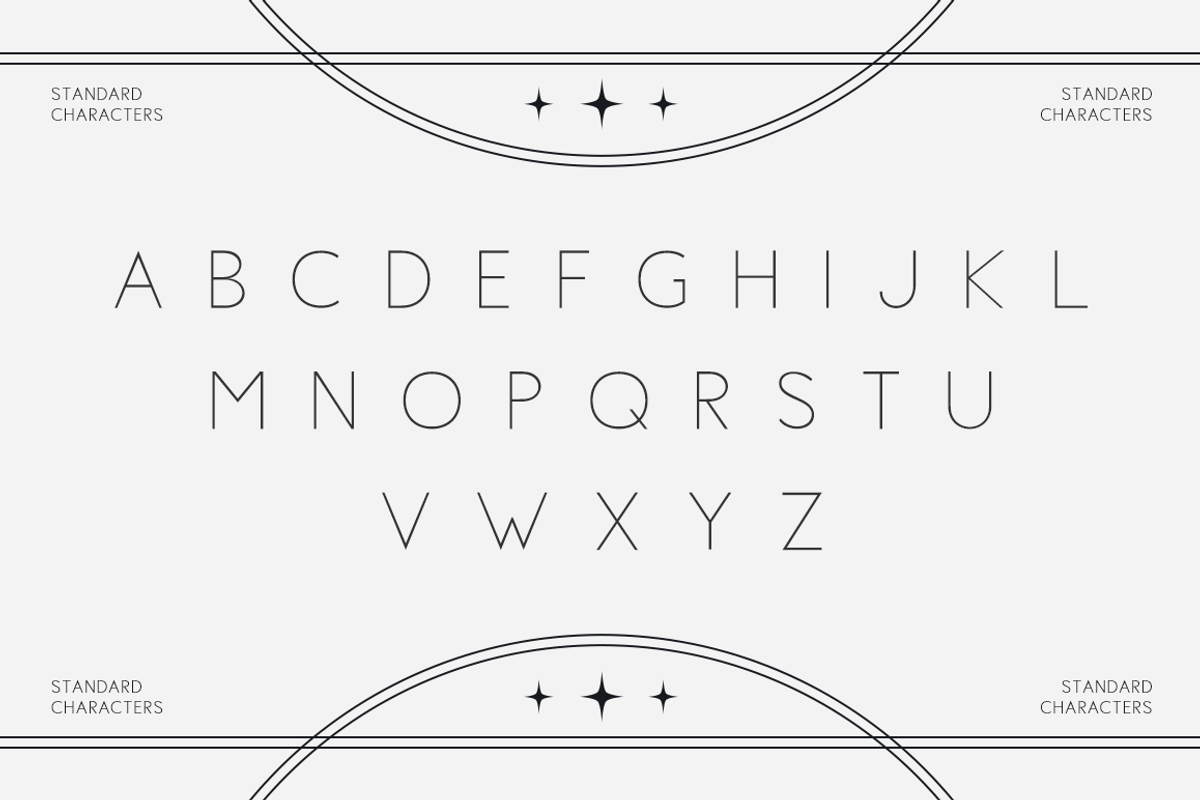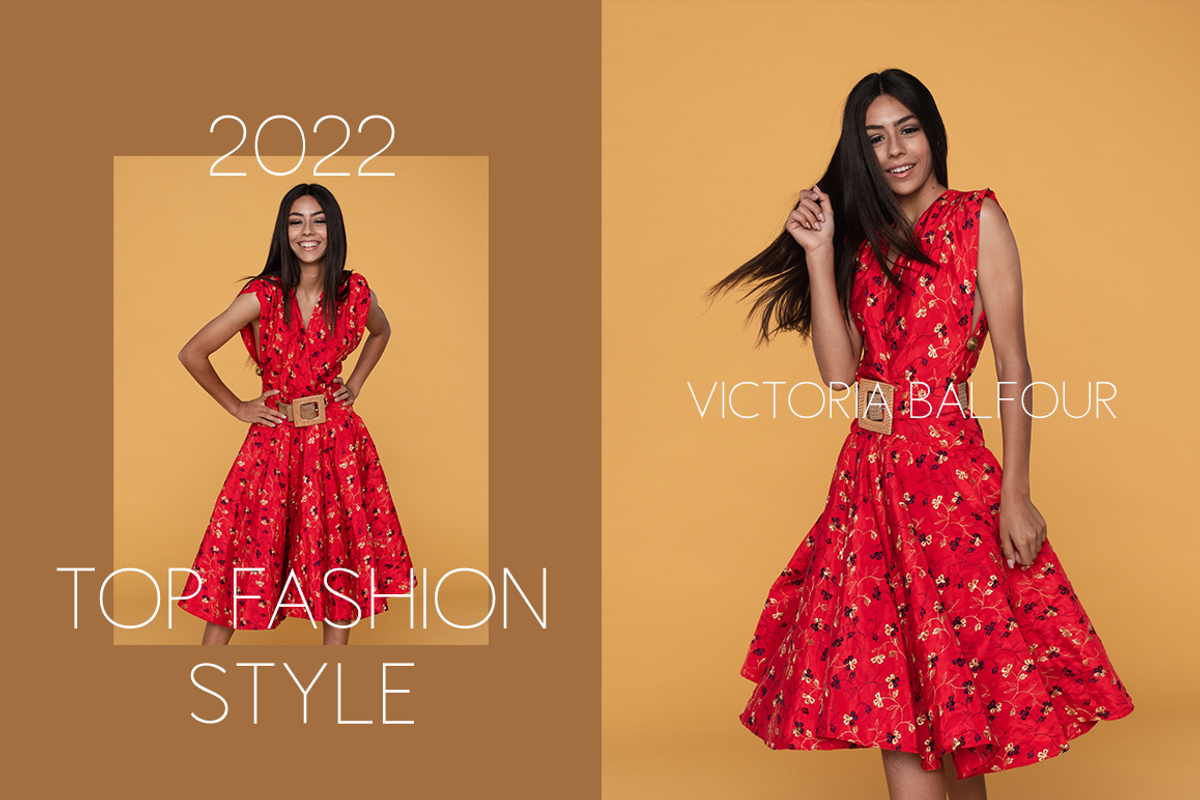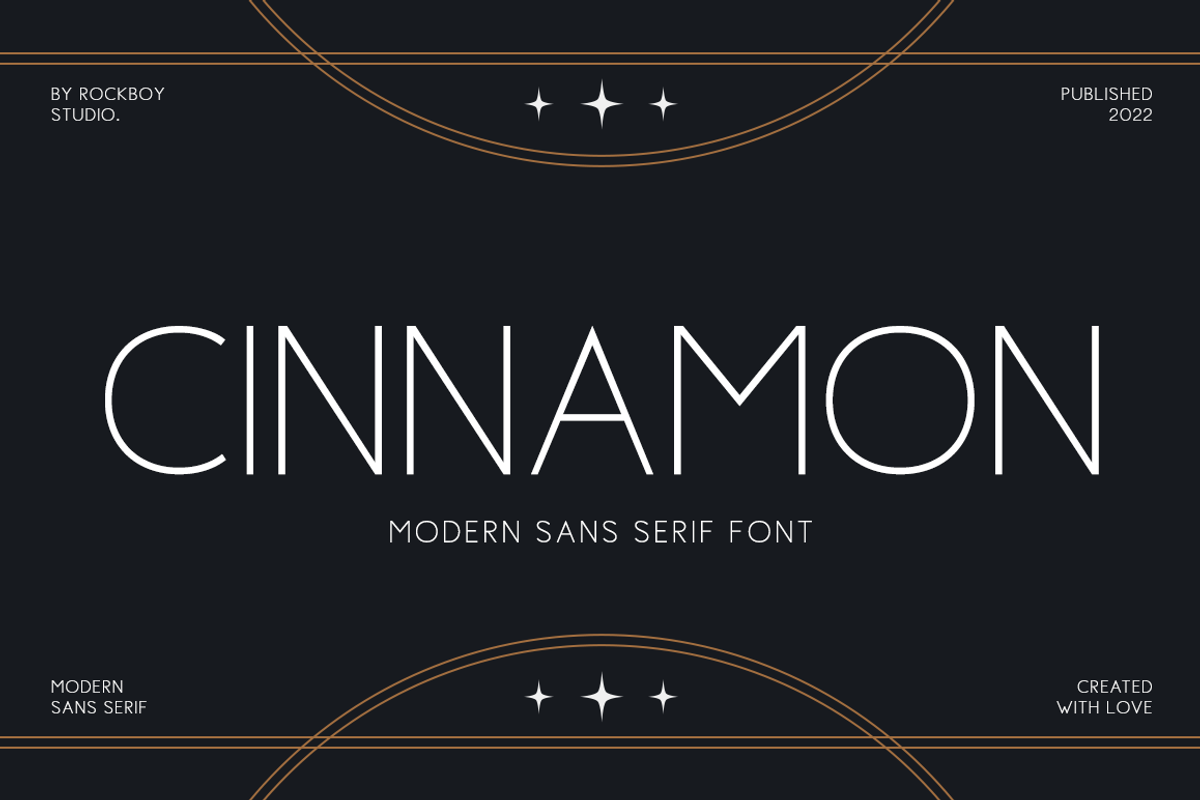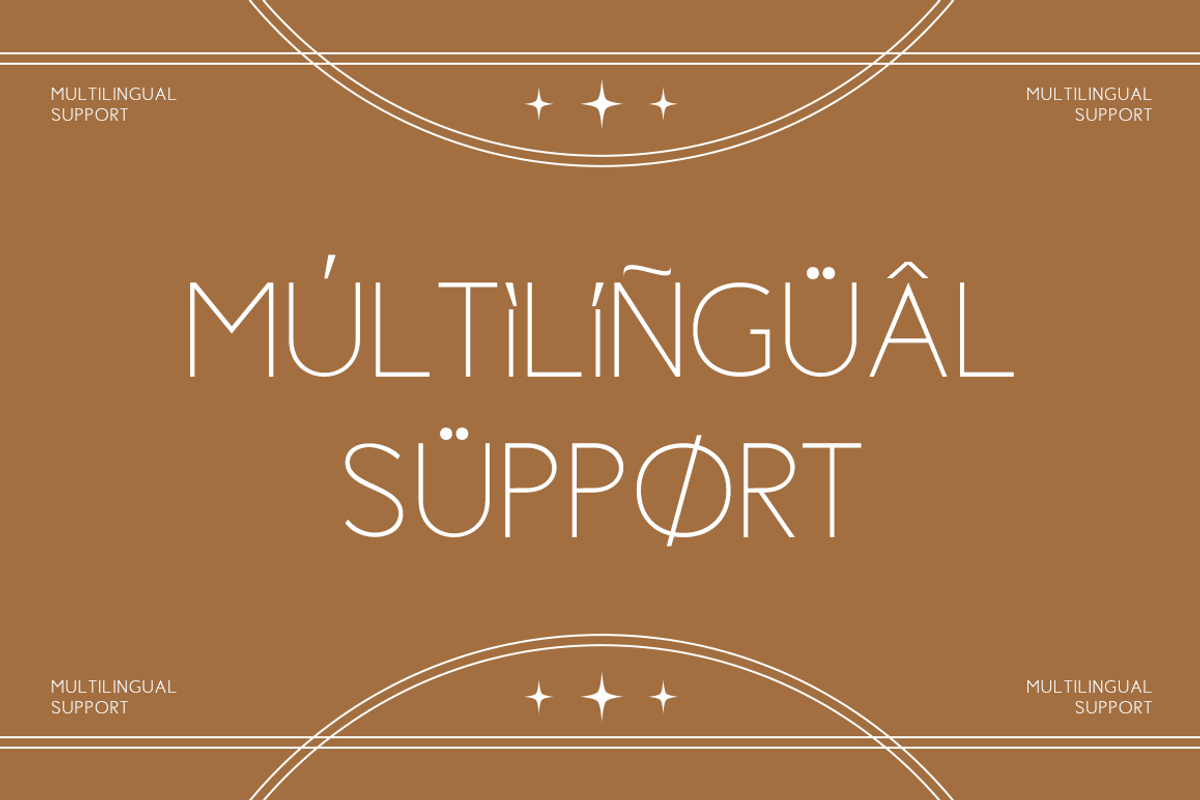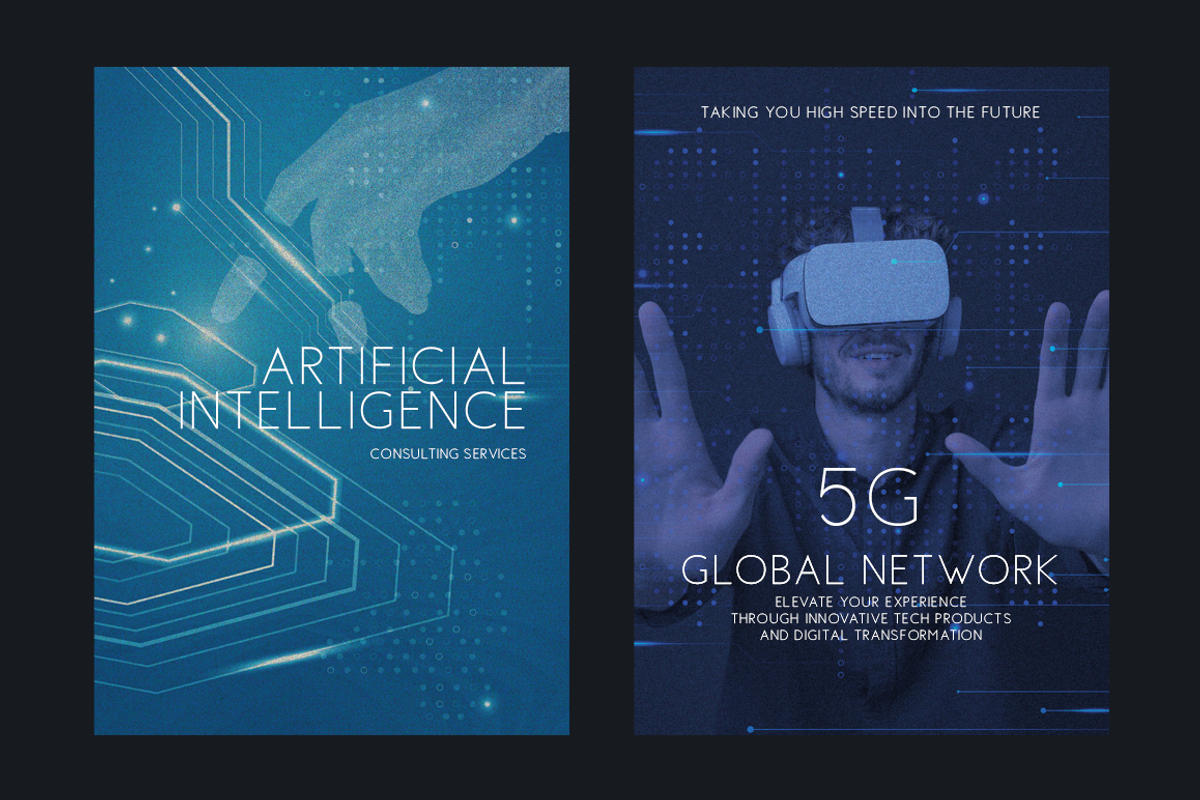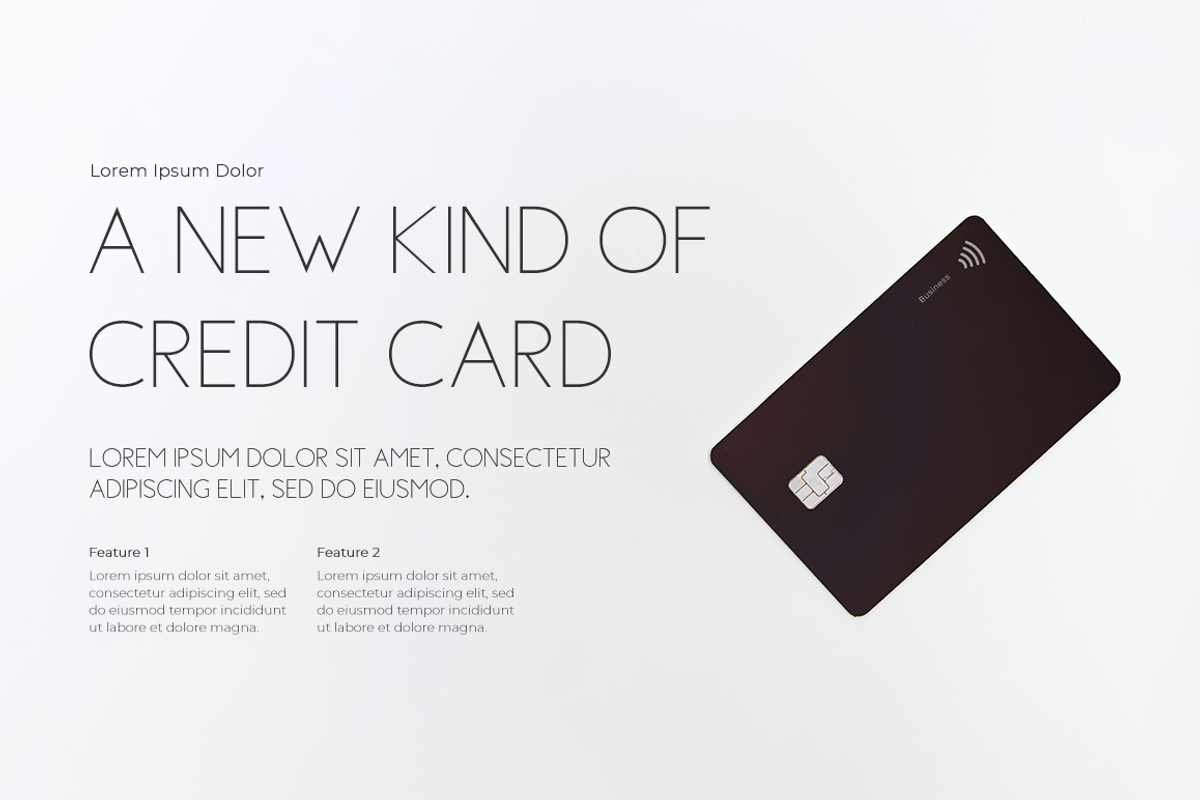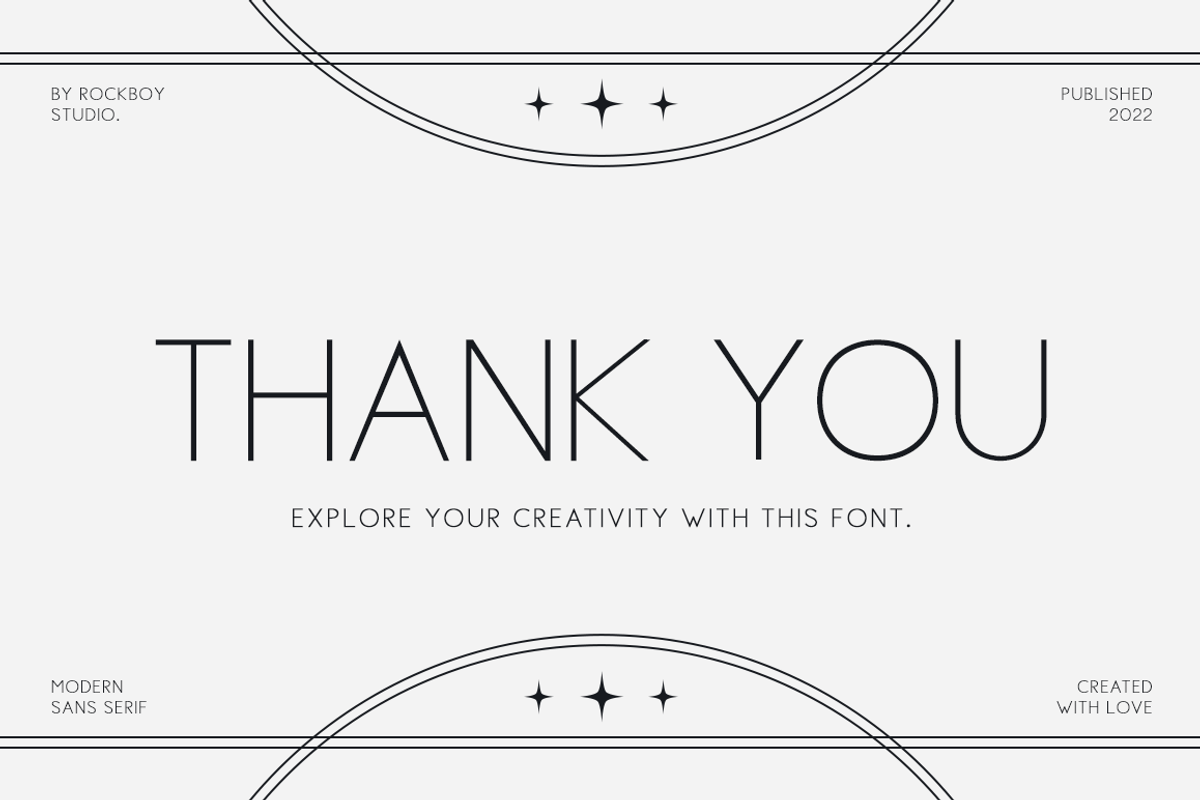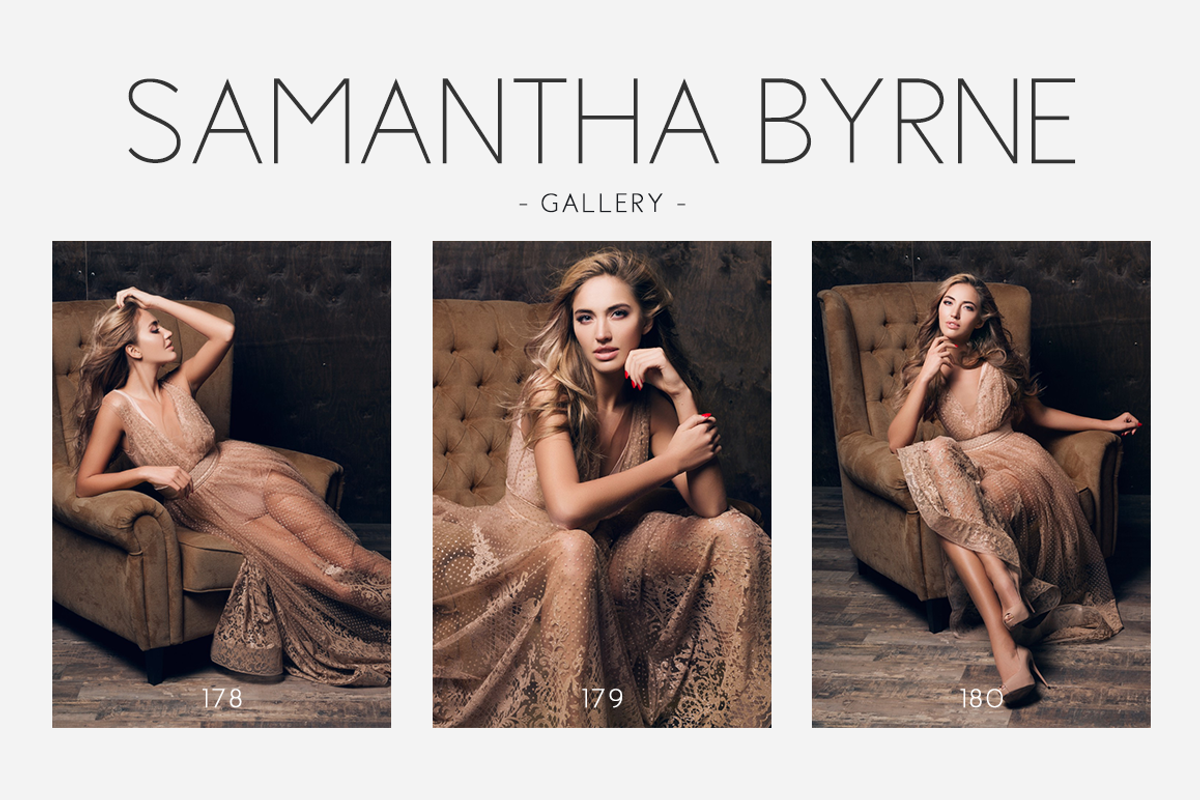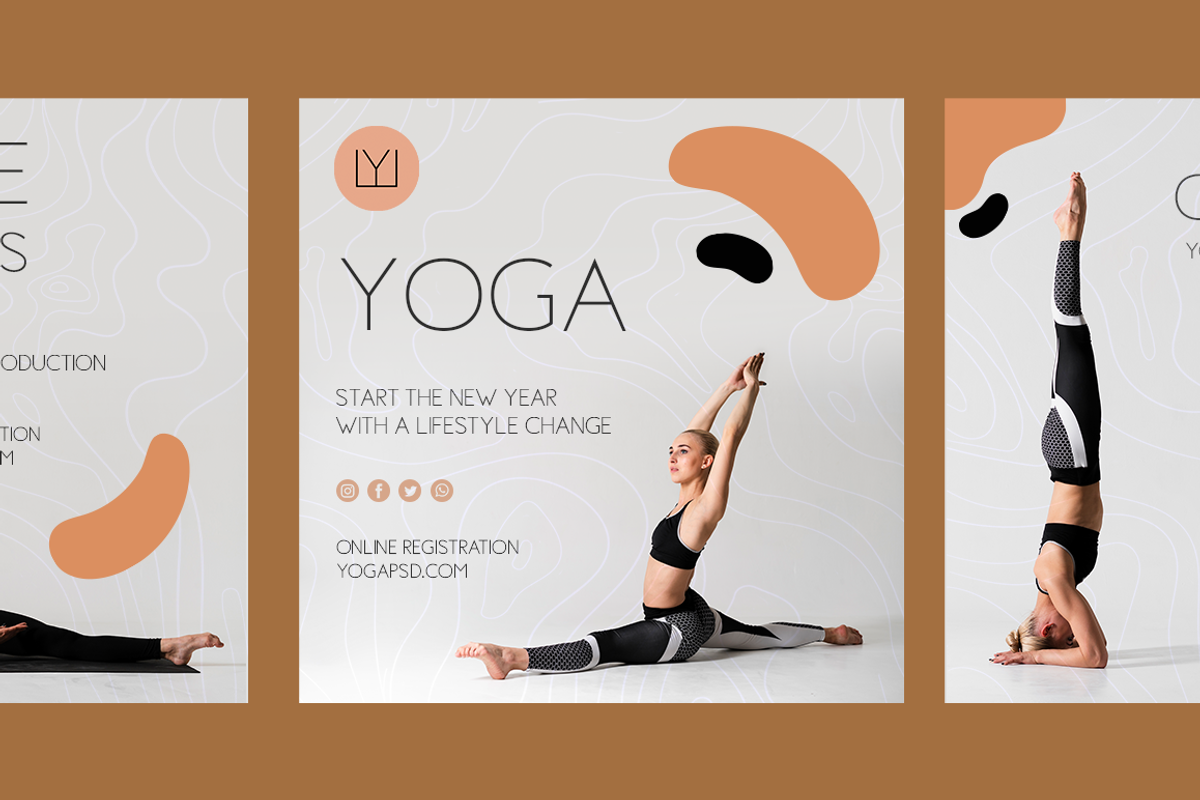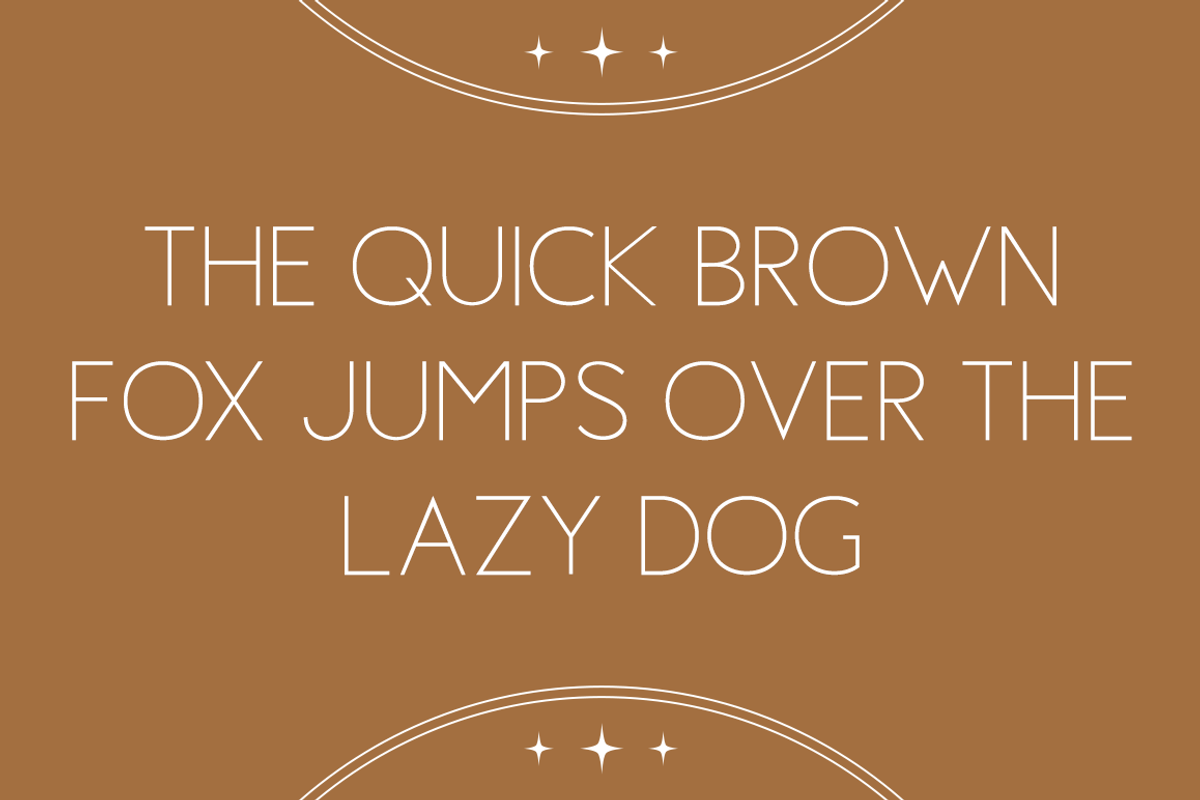
Cinnamon - Advertisement Font
Cinnamon is a minimal and modern sans serif font. It can easily be matched to an incredibly large set of projects, so add it to your creative ideas and notice how it makes them stand out!